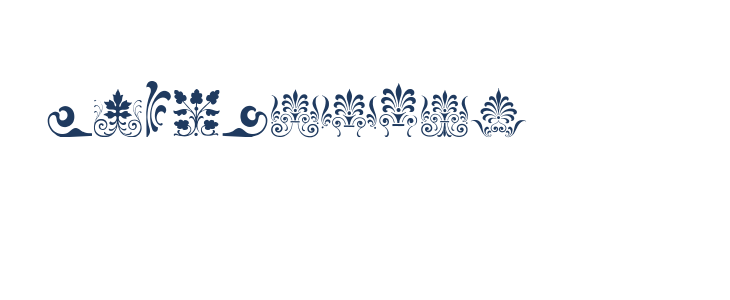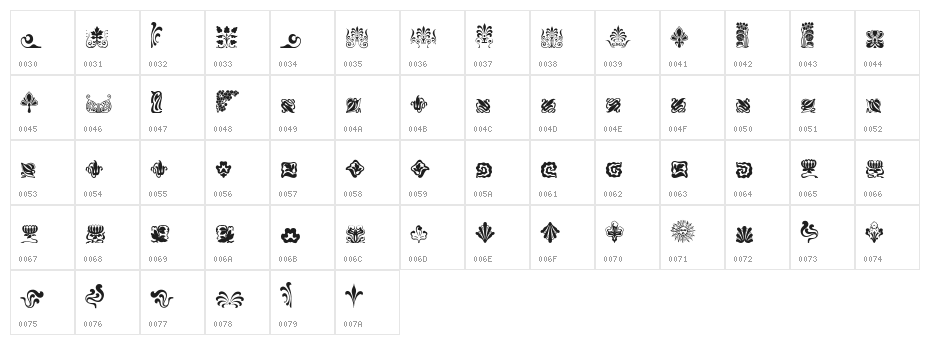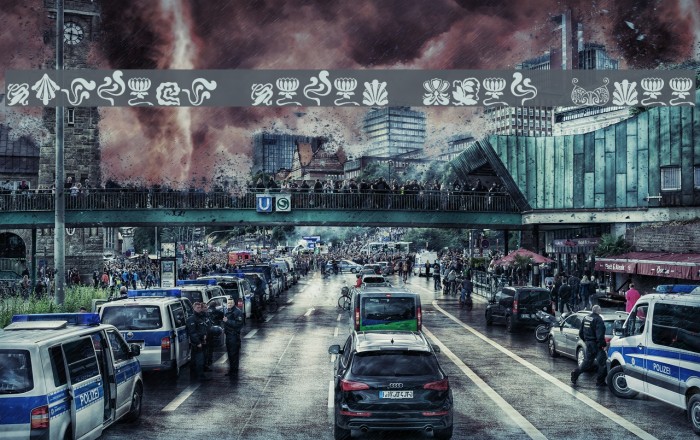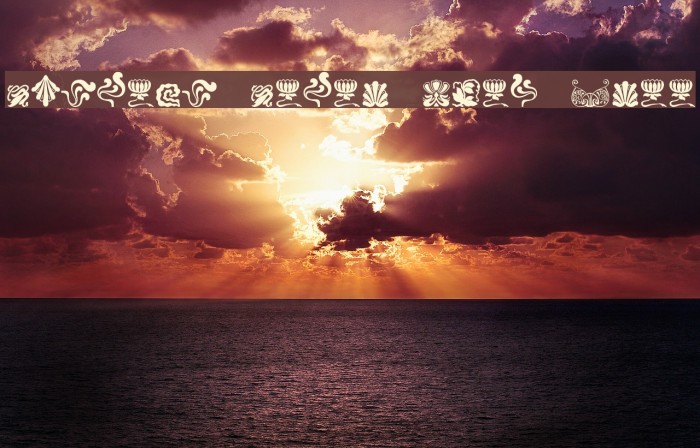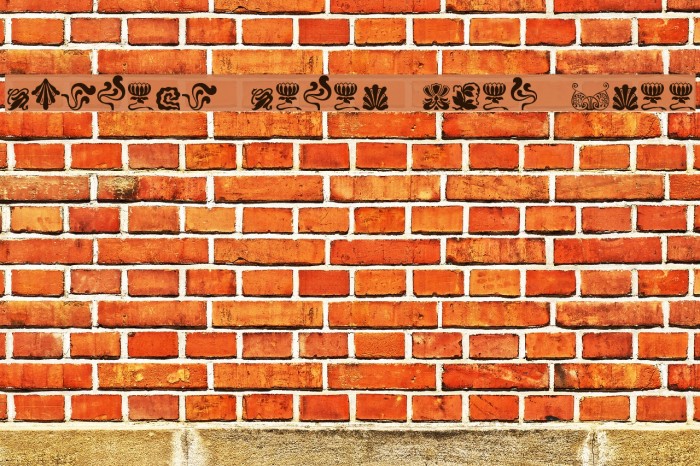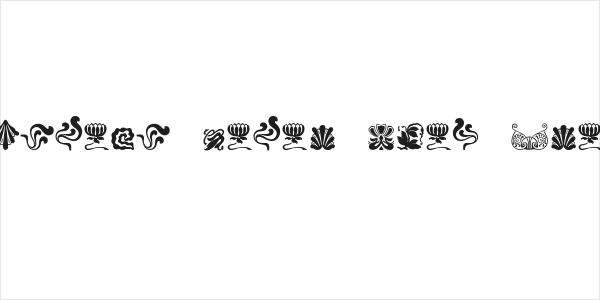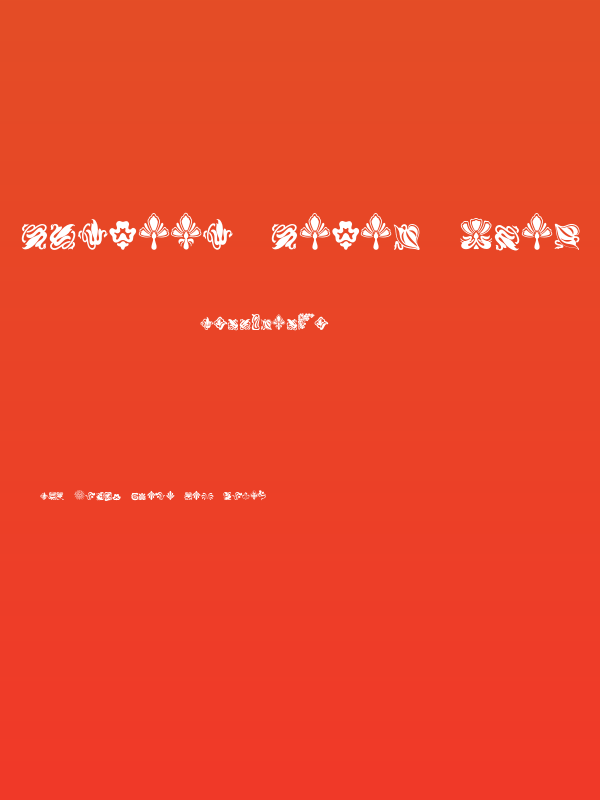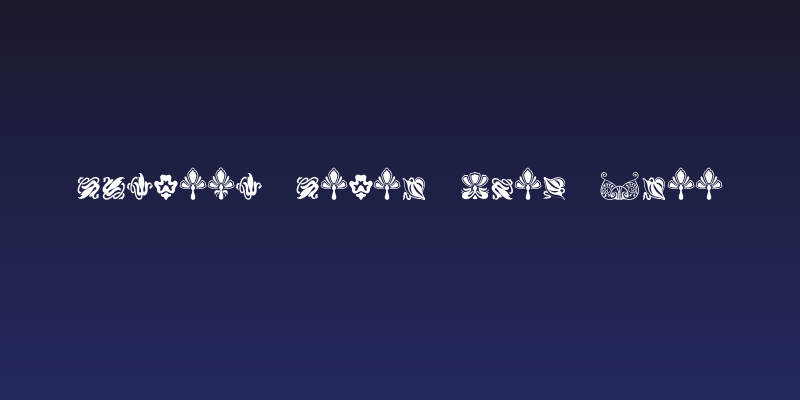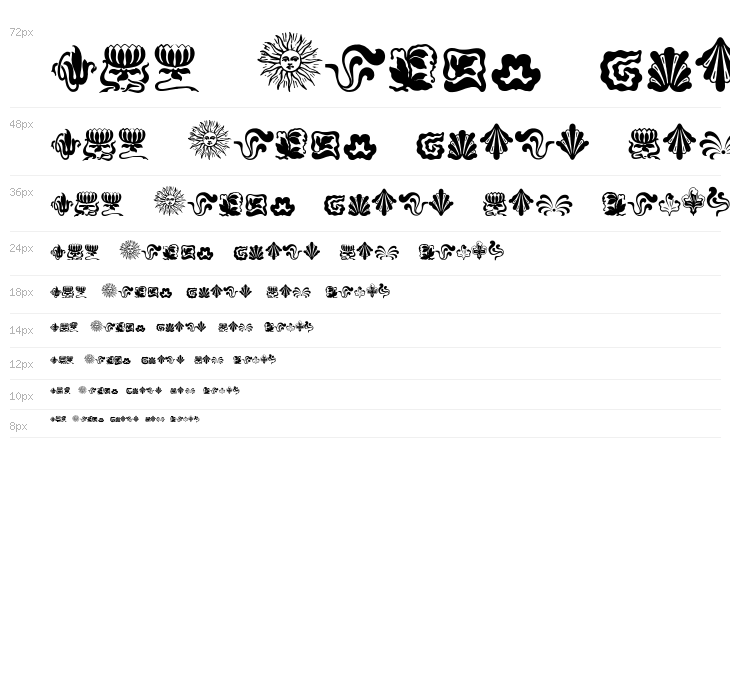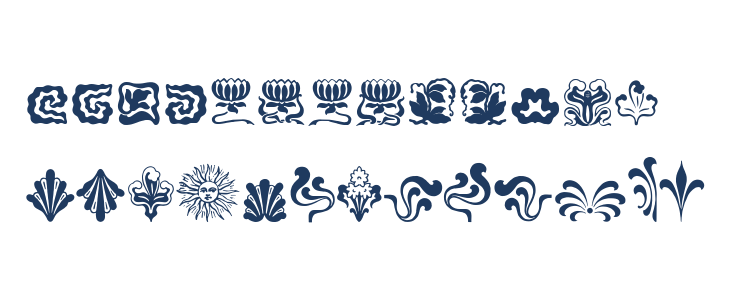
Nouveau Never Dies Free Font
Nouveau Never Dies Free Description
This font is a decorative collection of intricate and ornate designs, reminiscent of the Art Nouveau style. Each character is a unique piece of art, featuring elaborate floral and natural motifs that intertwine with abstract shapes. The designs are bold and eye-catching, making them ideal for decorative purposes. The characters are not traditional letters or numbers but rather artistic symbols that can be used to embellish various projects. The overall aesthetic is vintage and elegant, capturing the essence of early 20th-century design.
| Use Case | Decorative elements |
| Proposed Projects | Ideal for decorative borders, invitations, artistic projects, and vintage-themed designs. |